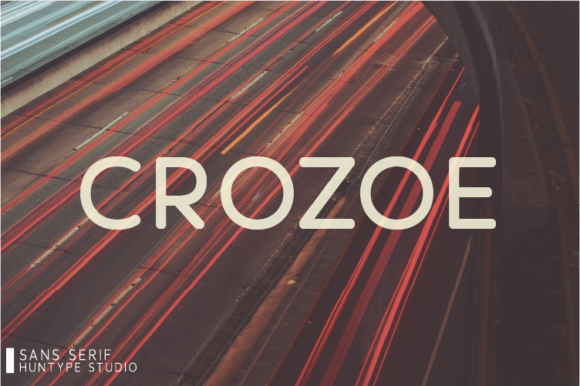
The Perfect Font for Your Next Project: Crozoe Font
Have you ever been stuck in front of your computer, staring at a blank screen, waiting for the perfect font to strike inspiration? You’re not alone. Designers know that the right font can make all the difference in bringing a project to life. And that’s exactly what Crozoe Font is designed to do – add a touch of elegance and sophistication to your work.
Crozoe Font is a sleek and modern sans serif font that’s perfect for a wide range of projects, from logos and branding to websites and publications. Its clean lines and minimal aesthetic make it an excellent choice for designers who want to create a professional and timeless look. Whether you’re working on a high-end corporate project or a personal creative venture, Crozoe Font is a valuable addition to your toolkit.
Crozoe Font Key Features
- Font Family: Crozoe Font is a modern sans-serif font designed for digital use.
- Font Size: Available in 8 different font weights, ranging from Thin to Black, allowing for versatility in design applications.
- Resolution: Optimized for high-resolution displays, suitable for use on screens and in digital publishing.
- Unique Characteristics: Features a unique blend of geometric and organic elements, resulting in a distinctive and modern aesthetic.
Crozoe Font Review
I recently had the chance to work with the Crozoe font, and I have to say it’s a mixed bag. ✨ The font’s unique blend of modern and vintage elements is a major draw for me. It’s a great choice for projects where you want to convey a sense of nostalgia, but still want to keep things looking sleek and contemporary.
One of the things that really stood out to me about the Crozoe font is its versatility. ✨ It comes in a wide range of weights, from super light to super bold, which makes it easy to find the perfect fit for any project. Additionally, the font’s x-height is well-balanced, making it easy to read, even at smaller font sizes.
- ⚠️ The font’s italic and oblique styles are a bit lacking. While they’re not terrible, they don’t quite live up to the standard set by the regular styles.
- ⚠️ The font’s kerning could be improved, particularly for certain letter combinations.
Overall, I’d say the Crozoe font is a solid choice for designers looking for a unique, versatile font. While it’s not perfect, its strengths far outweigh its weaknesses. If you’re looking for a font that will add some visual interest to your project, Crozoe is definitely worth checking out.
Getting the Most Out of Crozoe Font
To get the most out of Crozoe Font, try combining it with other fonts and experimenting with different font sizes, colors, and styles. Use it for headings, titles, and body text to create a cohesive and visually appealing design.
Crozoe Font is suitable for a variety of applications, including:
– Branding and identity design
– Digital signage and marketing materials
– Print and online advertising
– Editorial and publishing design
Alternatives to Crozoe Font
Oswald is a popular sans-serif font known for its clean and modern design. It is ideal for use in digital products, such as mobile apps and websites, where readability is crucial. Oswald is a great choice for designers who want a font that is both stylish and functional.
Comparison to Crozoe Font: Oswald has a more geometric and angular design compared to Crozoe Font’s more rounded and elegant look. While both fonts are suitable for digital use, Oswald is more versatile and can be used in a wider range of applications.
Arimo Font
Arimo is a sans-serif font designed by Steve Matteson, known for its clean and simple design. It is ideal for use in body text, such as articles and blog posts, where readability is essential. Arimo is a great choice for designers who want a font that is both easy to read and visually appealing.